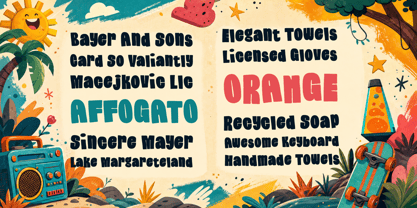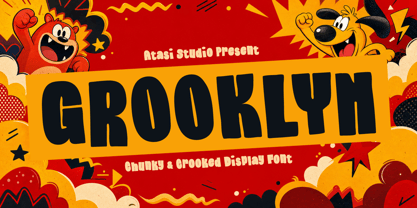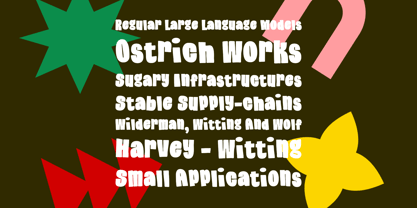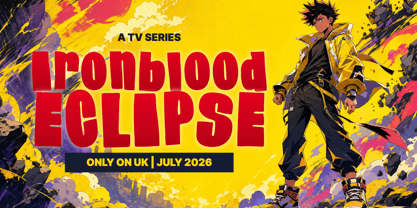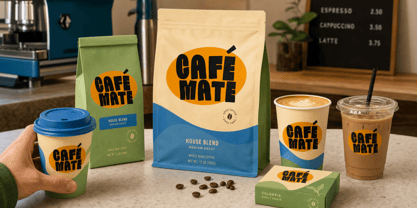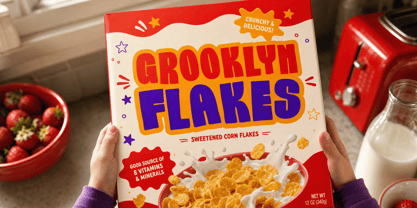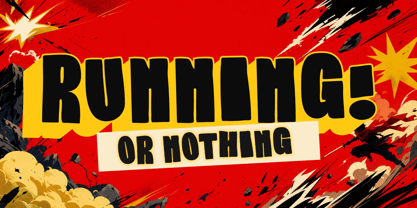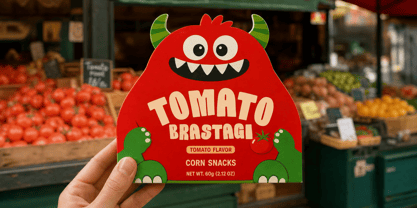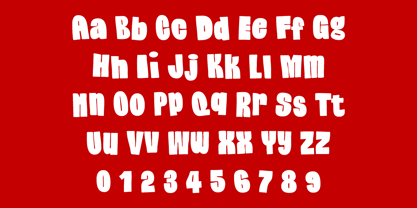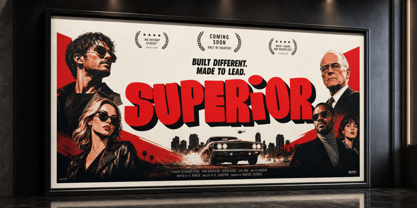
Grooklyn
by Atasi Studio
The Grooklyn Font Family was designed by Rizka Prayuda and published by Atasi Studio. Grooklyn contains 1 styles. More about this family
GROOKLYN is a chunky, crooked display font that embodies a rough-cut attitude and a strong pulp-crime personality. Its bold letterforms exude a loud, suspicious, and slightly chaotic vibe, reminiscent of vintage wanted posters, underground comedy titles, or offbeat movie headlines sourced from a backstreet print shop. Crafted with uneven shapes, playful weight, and an imperfect rhythm, GROOKLYN infuses every word with a raw, handmade energy while maintaining readability. This font captures a blend of urban grit, cartoon crime drama, retro poster culture, and streetwise humor. It is ideal for movie posters, crime-comedy titles, bold packaging, album covers, editorial headlines, stickers, merchandise, game titles, and branding that demands a quirky, loud, and unforgettable voice. GROOKLYN is not clean or polite; it is designed for projects that require character, tension, and a hint of trouble.